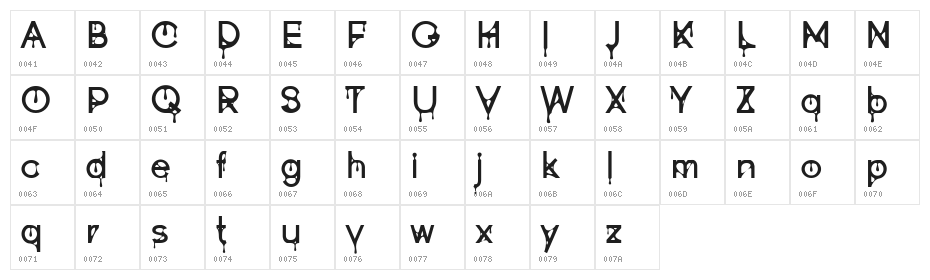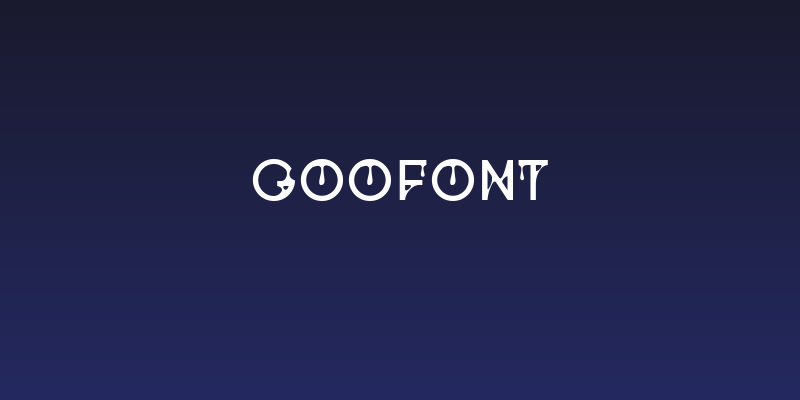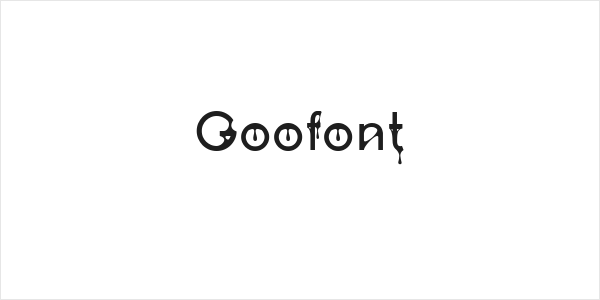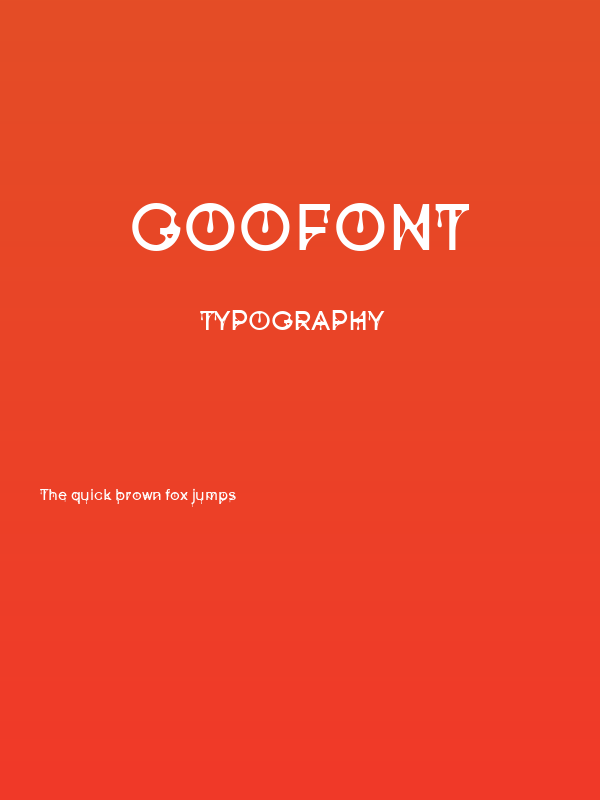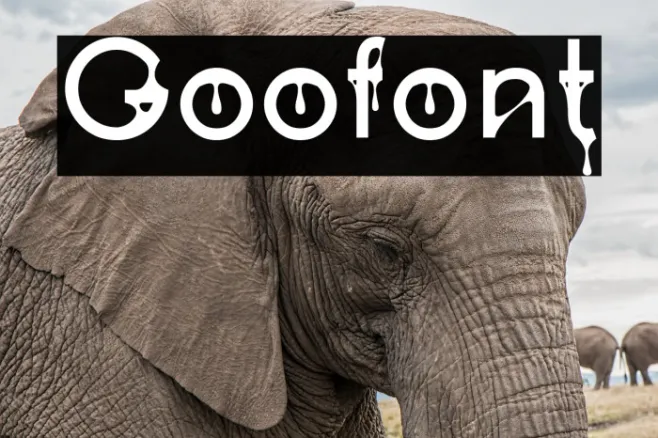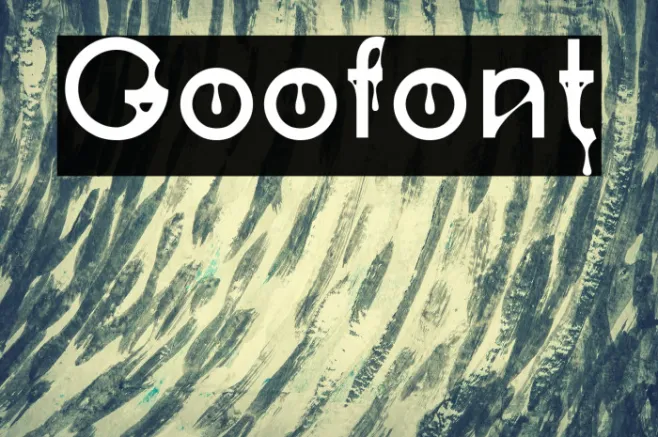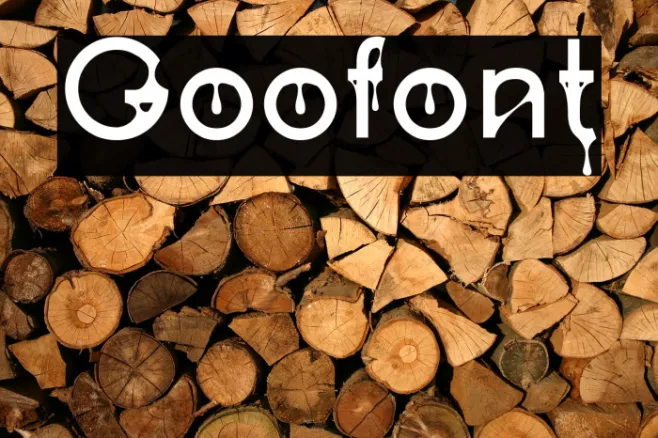
Goofont Font
Goofont Description
This font features a unique and playful design with elements that resemble drips or drops extending from the characters. The uppercase and lowercase letters maintain a consistent style, with rounded edges and a whimsical touch. The design incorporates circular cutouts within the letters, adding to its decorative appeal. The overall look is bold and eye-catching, making it suitable for creative and artistic projects. The numbers and special characters follow the same playful theme, ensuring a cohesive appearance across all glyphs.
| Proposed Projects | Ideal for creative projects such as posters, album covers, children's books, and branding for playful or artistic ventures. |